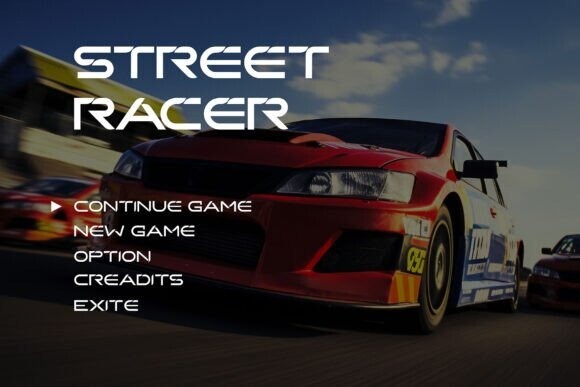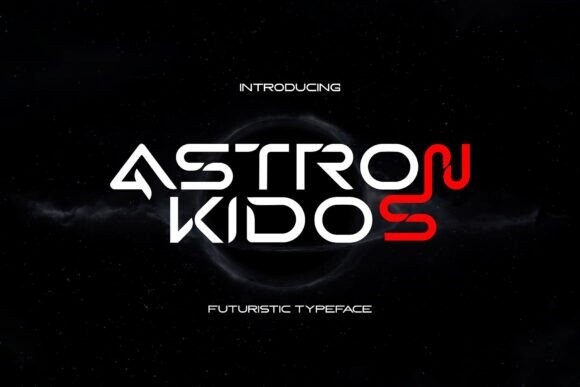
Astron Kidos Font
Astron Kidos Font, a streamlined and polished futuristic font devised to enhance avant-garde design initiatives. This futuristic charmer manifests the pinnacle of cutting-edge design, its crisp lines and modern aesthetics brimming in a fluid fusion of innovation and minimalism. Ascend to unprecedented heights in the realm of technology branding, science fiction, and digital interfaces. AstronKidos ensures an unrivaled boldness, sophistication embedded in its very form, and each character etched to perfection. A testimony to versatility and adaptability, AstronKidos infuses life into logos, headlines, and artistic layouts alike. Its unfettered readability paired with a refined finish adapts seamlessly, no matter the medium. Ignite the blueprint of creativity and stay at the forefront of design evolution with Astron Kidos, the spot where the future intersects effortlessly with pristine, classic typography.